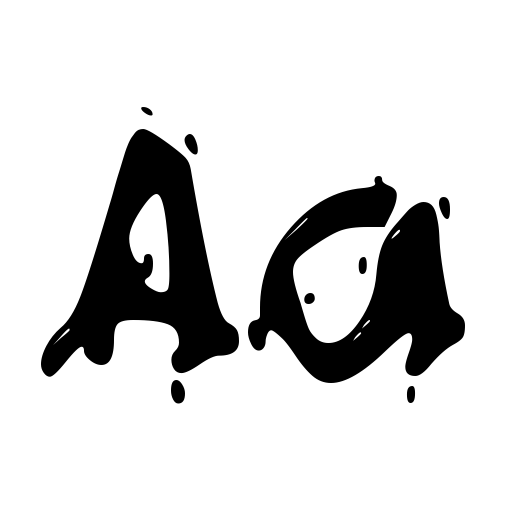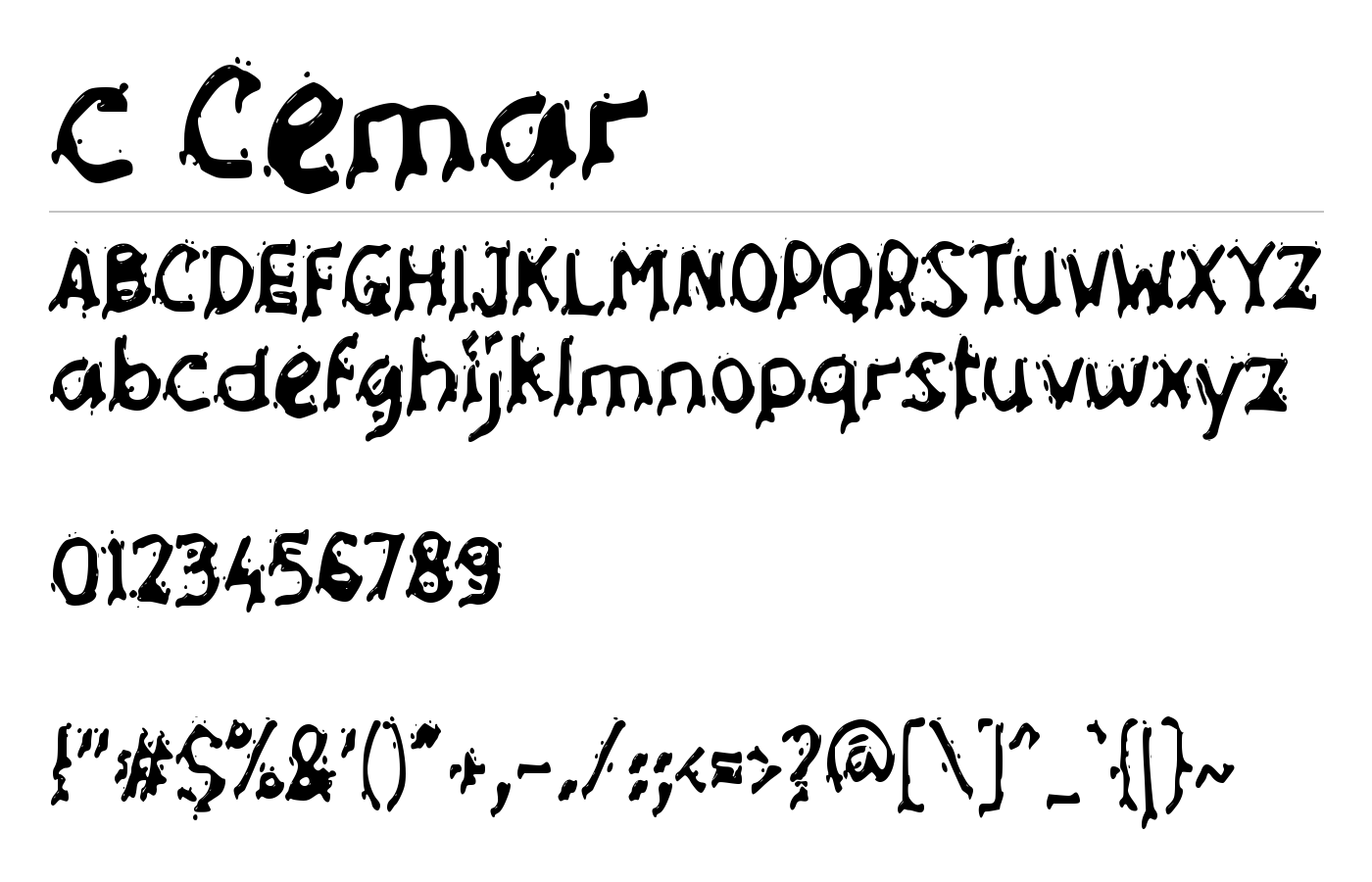
Cemar is a bold, playful handwritten font featuring irregular, dripping edges that give it a quirky, artistic vibe. Its lively, informal letterforms with moderate x-height and unique character shapes work well for creative projects, Halloween themes, or casual branding where a fun, eye-catching style is desired. This font adds personality and a sense of handcrafted originality to posters, logos, and themed designs.
c Cemar Font
About c Cemar Font